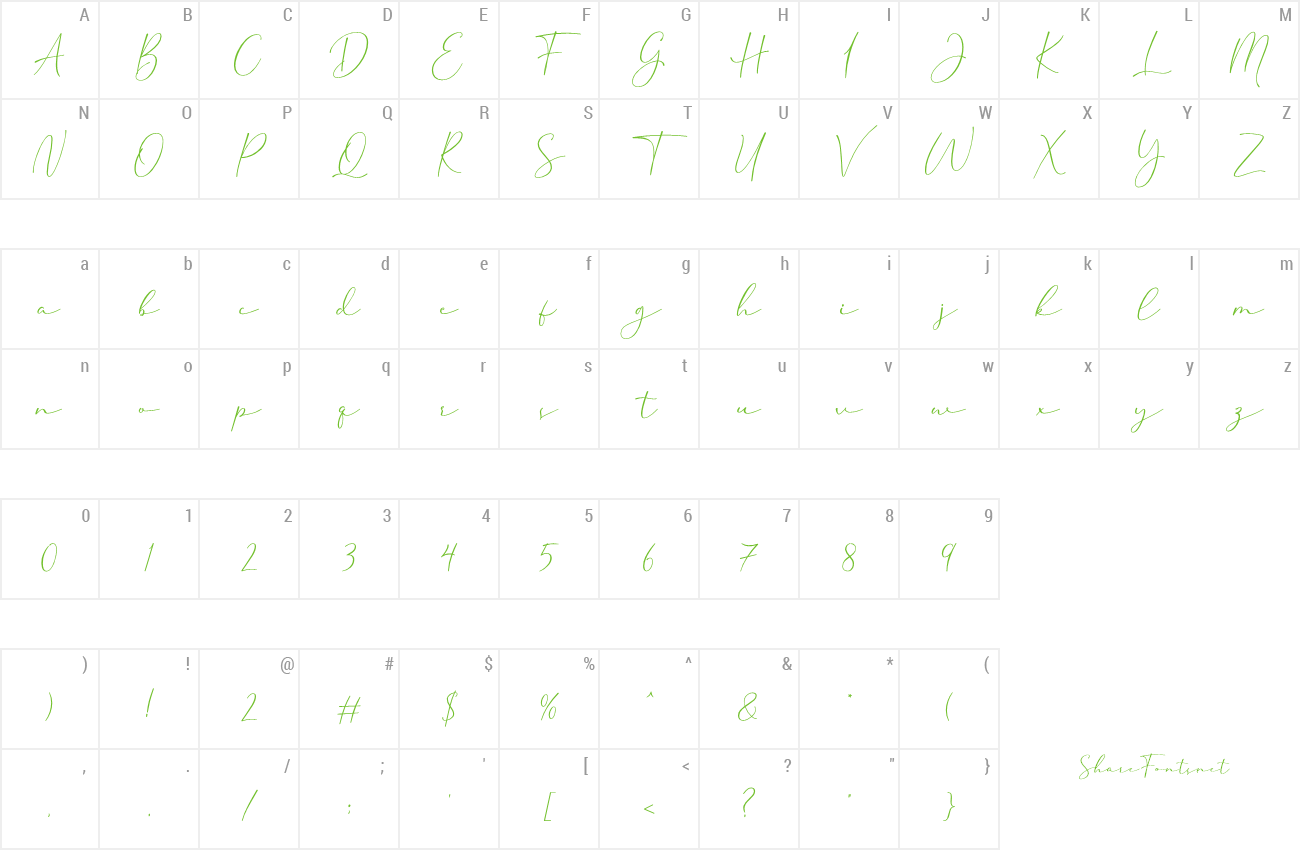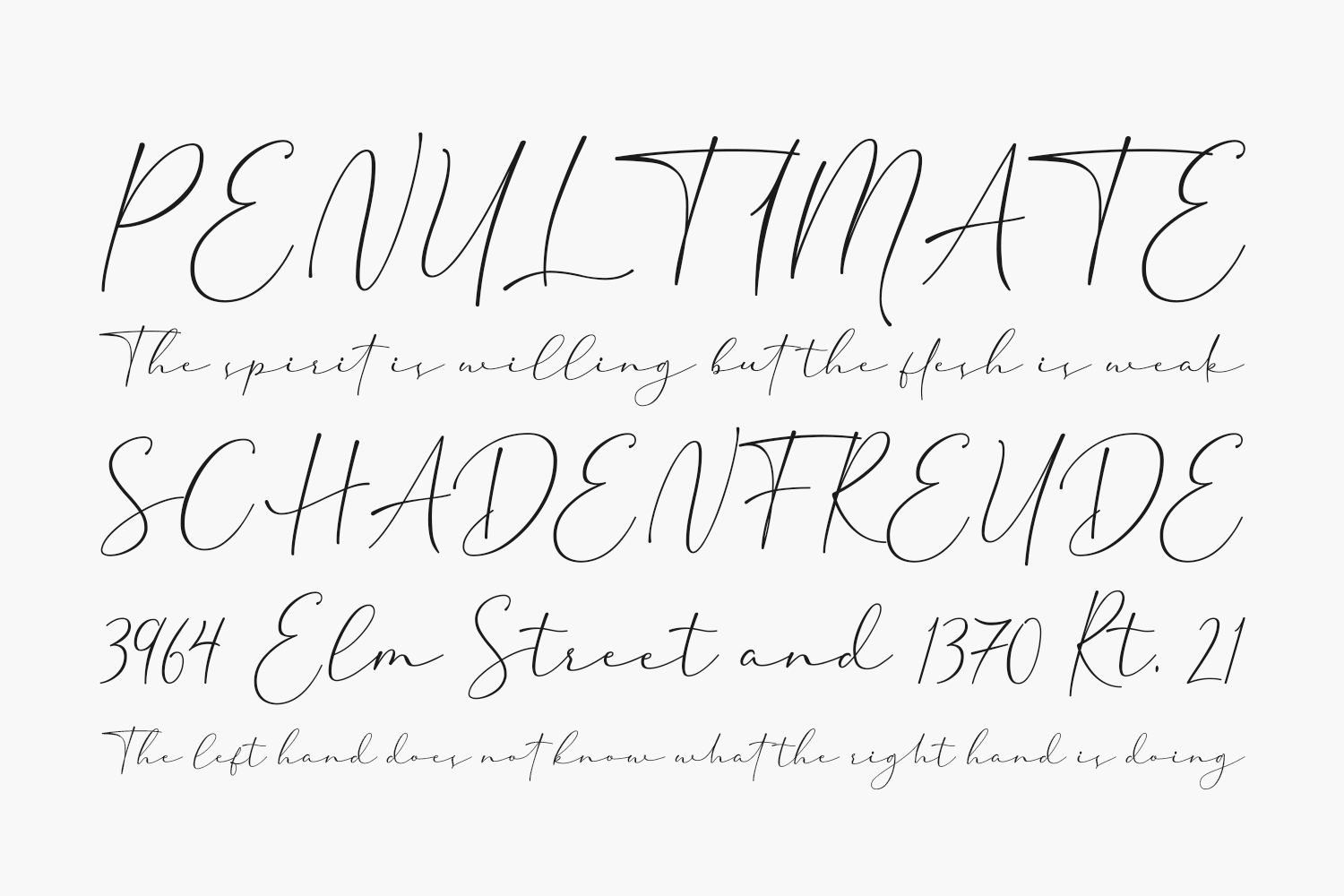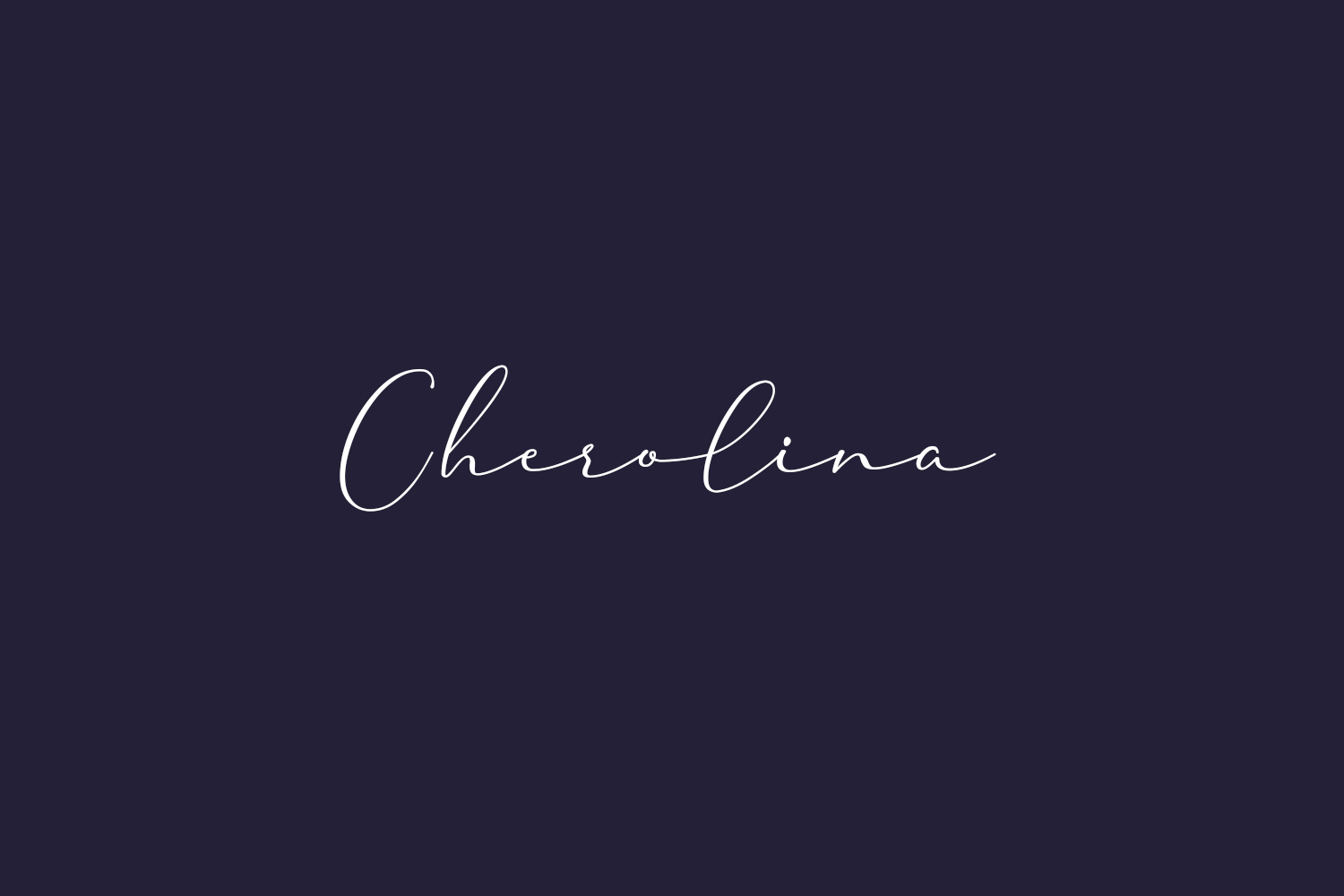
Cherolina Slant Font Free Download - It has been downloaded 142 times. The cherolina slant font was designed by almarkhatype 2019 abdul malik wisnu. Download free for personal use. The font subfamily is regular. 1 users have given the font a rating of 5.0 out of 5. Cherolina slant is the perfect font for all your fun designs. You can find more information about cherolina slant and it's character map in. Web cherolina slant is a slant opentype font.